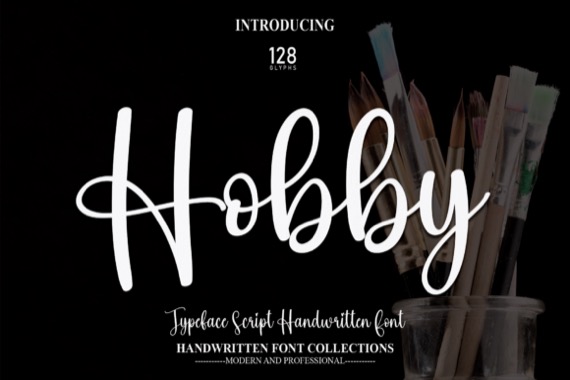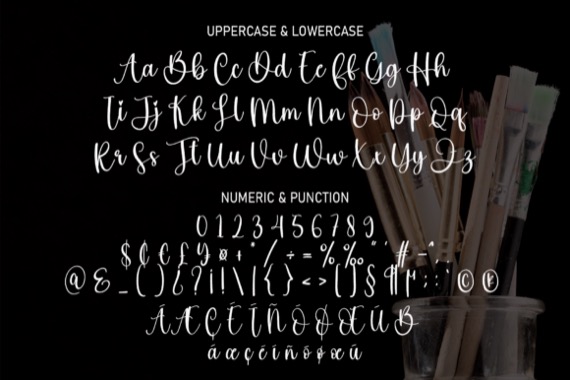
Hobby is a fashionable and cool handwritten script font that was created and published by Andika Studio. It is perfect for any branding project such as logos, t-shirt printing, creative products, and more. It will look extraordinary in a variety of contexts.
Hobby Handwritten Script Font
Designer, Publisher: Andika Studio